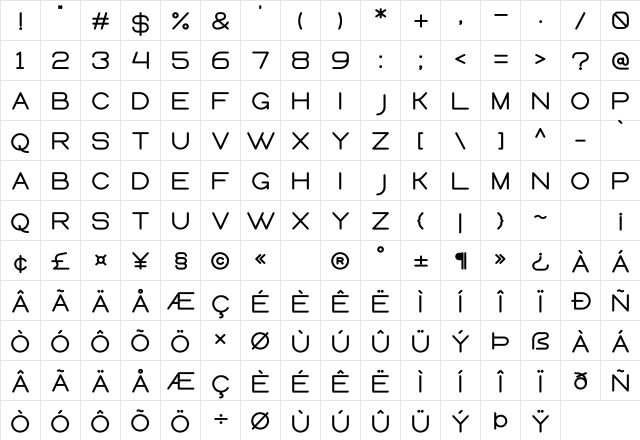
Queental Regular
Design Context for Queental Typeface
Queental offers clean, dependable letterforms without strong stylistic allegiance, making it a practical choice for designers who need flexibility.
Pro Tip: Use Queental in both headline and body roles to test its range before committing to a single application.